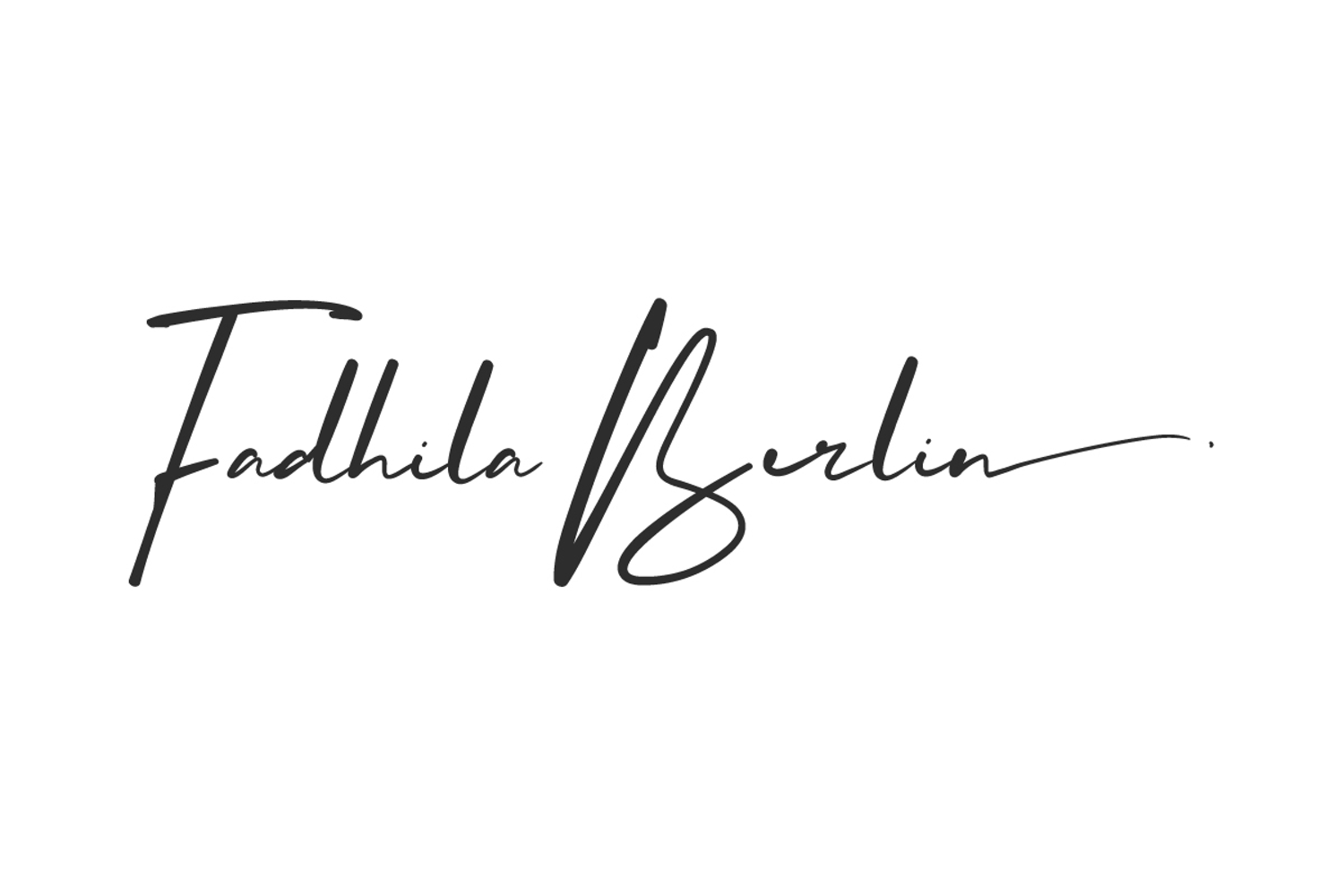
Fadhila Berlin
Fadhila Berlin Font is an elegant and modern classic signature font, with soft curves that make it look very beautiful. Coupled with Ligature and Alternate which can be combined perfectly. This font is suitable for blogs, card designs, headers, headline, invitations, label, logo, product packaging, quotes, stationery, stickers, tags, template, title, watermark, website, etc.
Fadhila Berlin Font includes a complete set of Basic Uppercase and Lowercase Characters, Numbers, Punctuation, Symbols, Ligature, and Alternate. With quick dry strokes this font has been carefully designed to re-create natural signature text. Perfect for advertising, boutique, event organizer, fashion, florist, hotel, printing, publishing, spa salon, wedding and more.